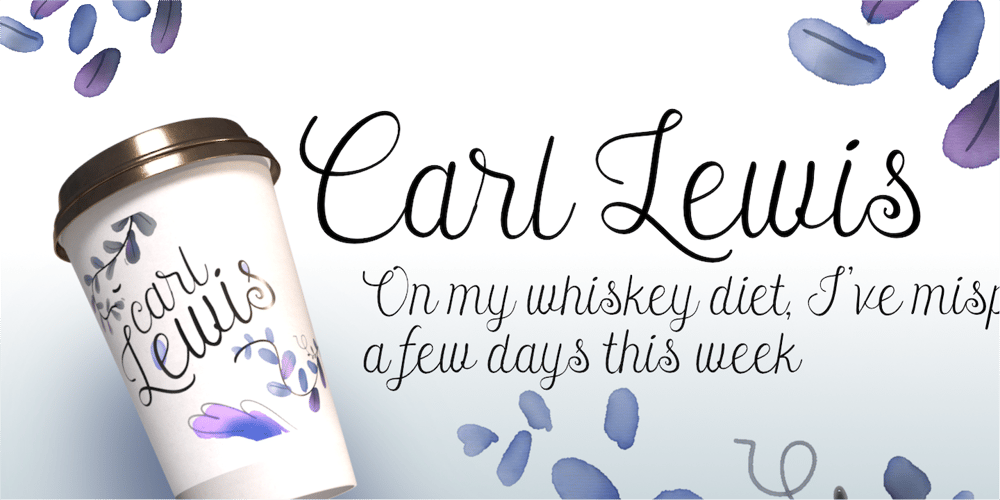
Carllewis Font Family was designed by Wahyu Eka Prasetya, Afiat Sukmaraga and published by Hati. Carllewis contains 1 styles and family package options. A playful and elegant curly font with intricate loops and swirls, perfect for wedding invitations, feminine branding, or cheerful design projects.